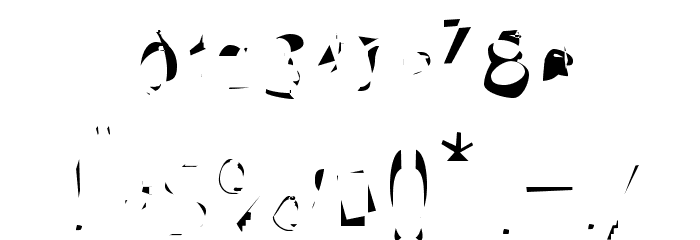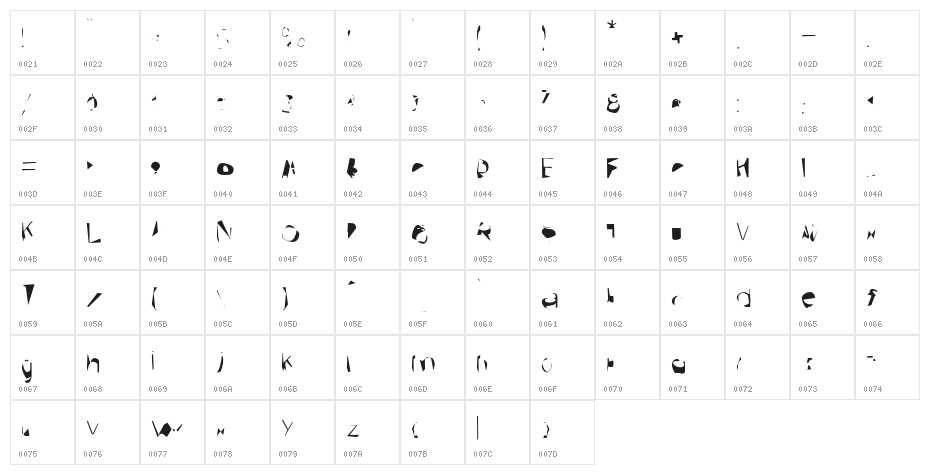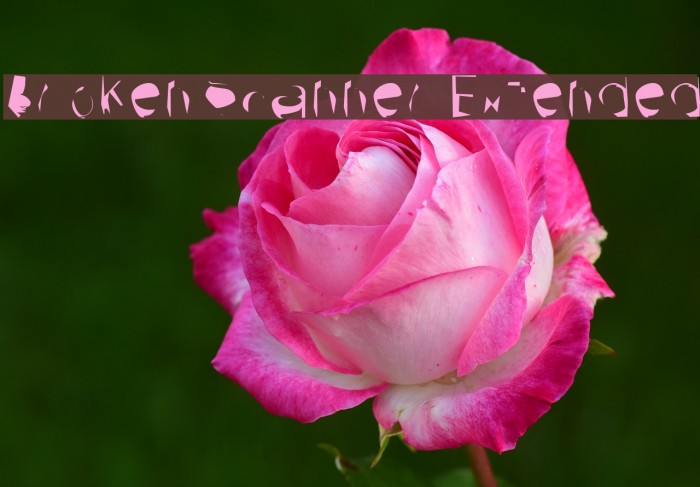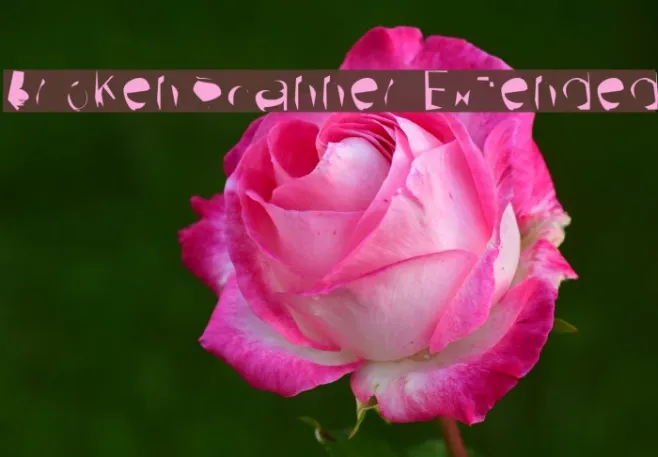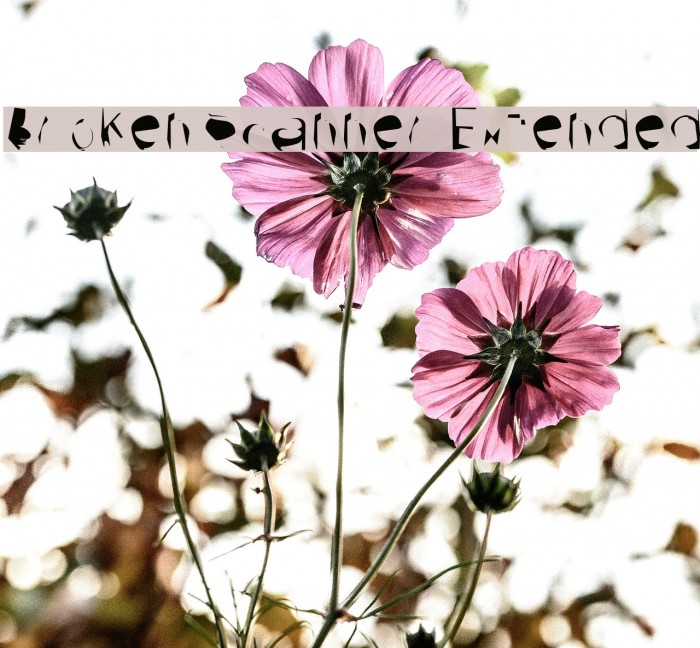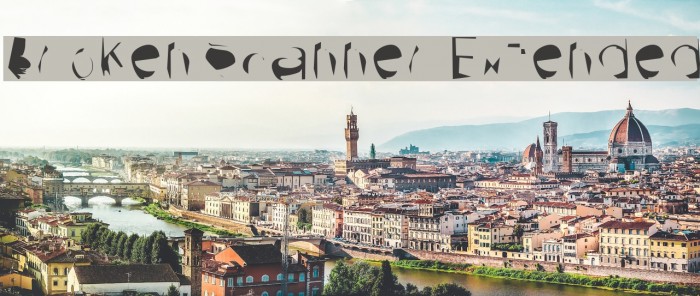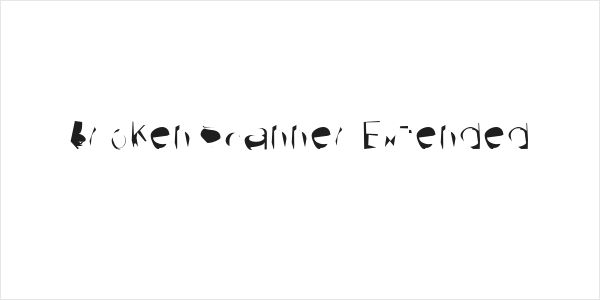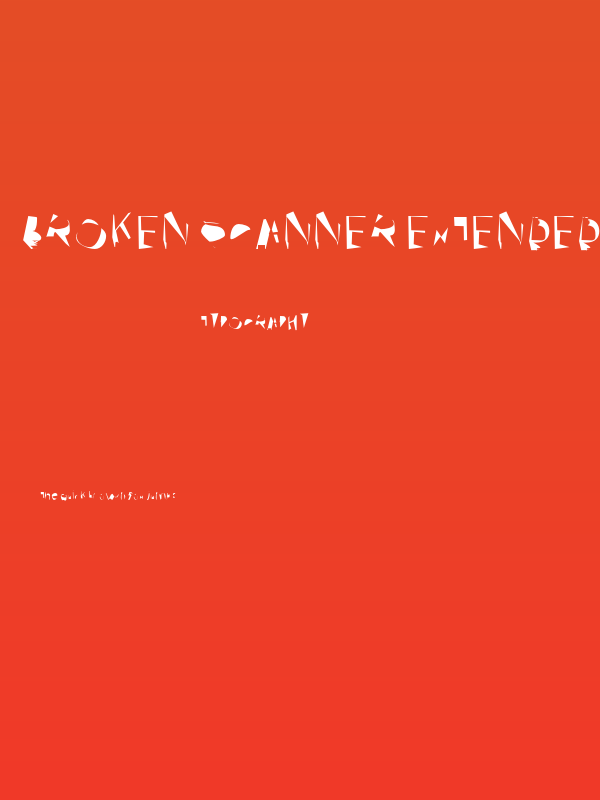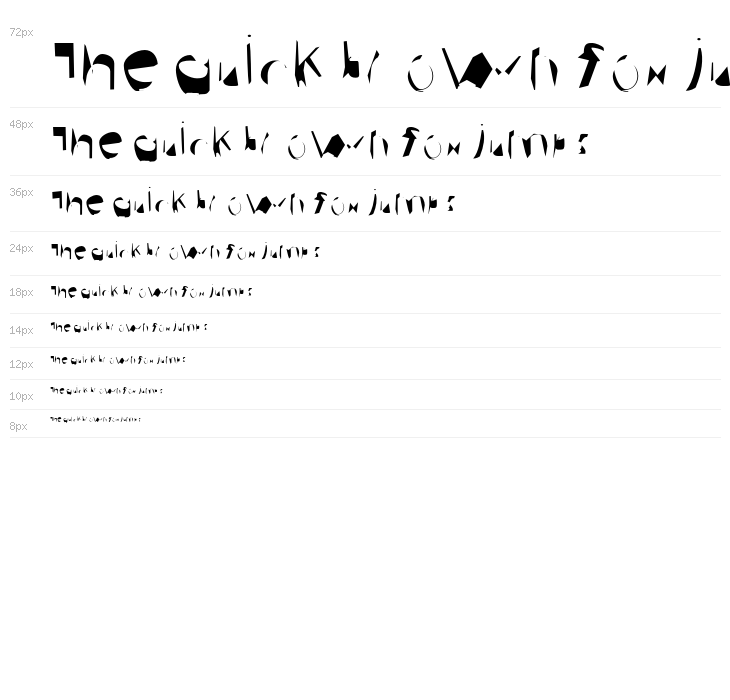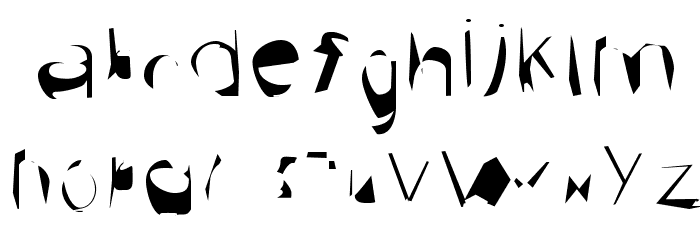
Broken Scanner Extended Font
Broken Scanner Extended Description
This font features a highly abstract and fragmented design, reminiscent of a glitch or broken digital display. The characters are composed of sharp, angular shapes with irregular cuts and missing segments, creating a chaotic and dynamic appearance. The uppercase and lowercase letters maintain a consistent style, with each character appearing as if it has been shattered or distorted. The numbers and special characters follow the same fragmented aesthetic, adding to the overall disjointed look. This font is visually striking and unconventional, making it suitable for projects that aim to capture attention and convey a sense of disruption or modernity.